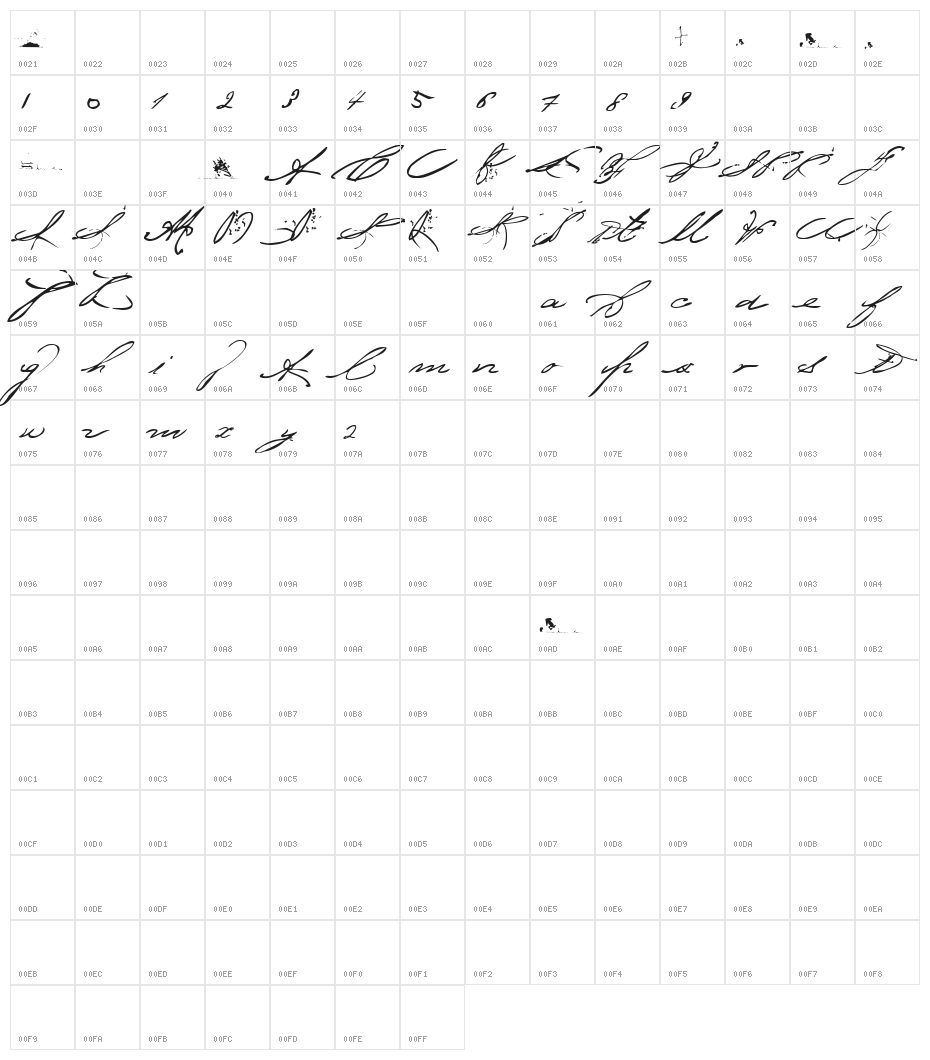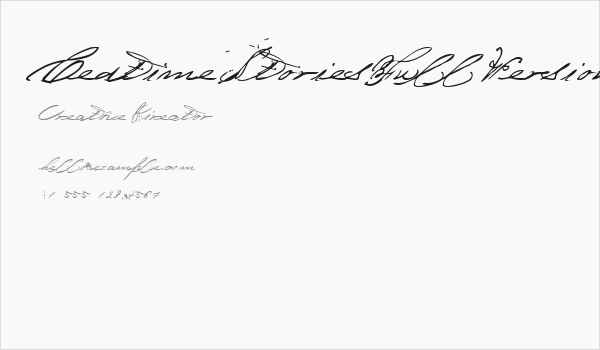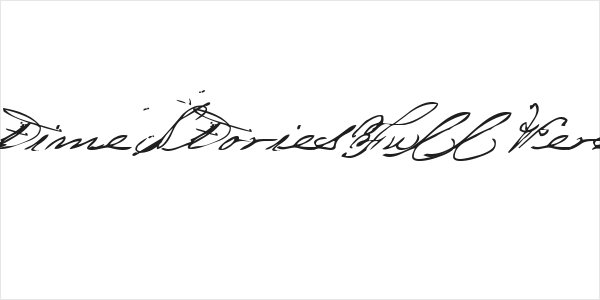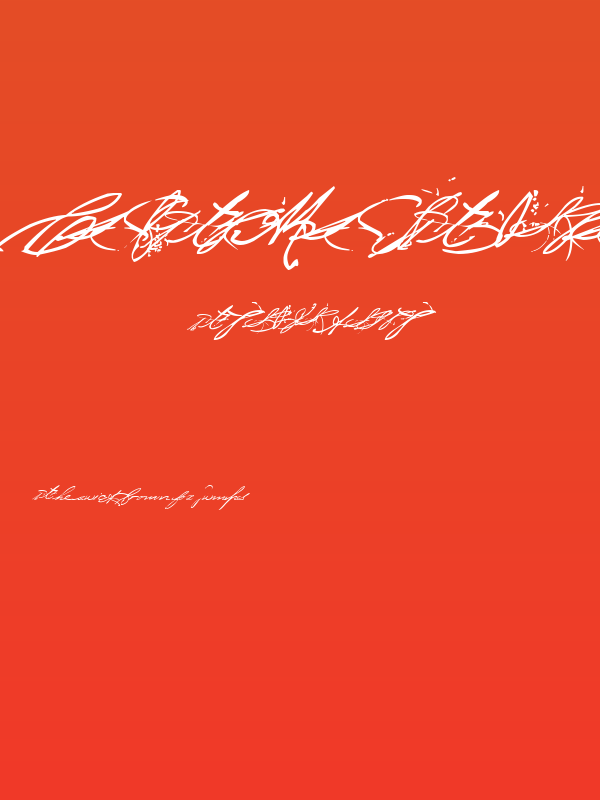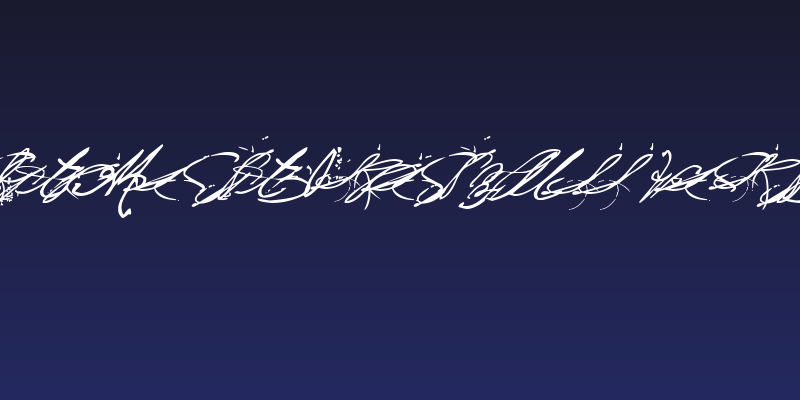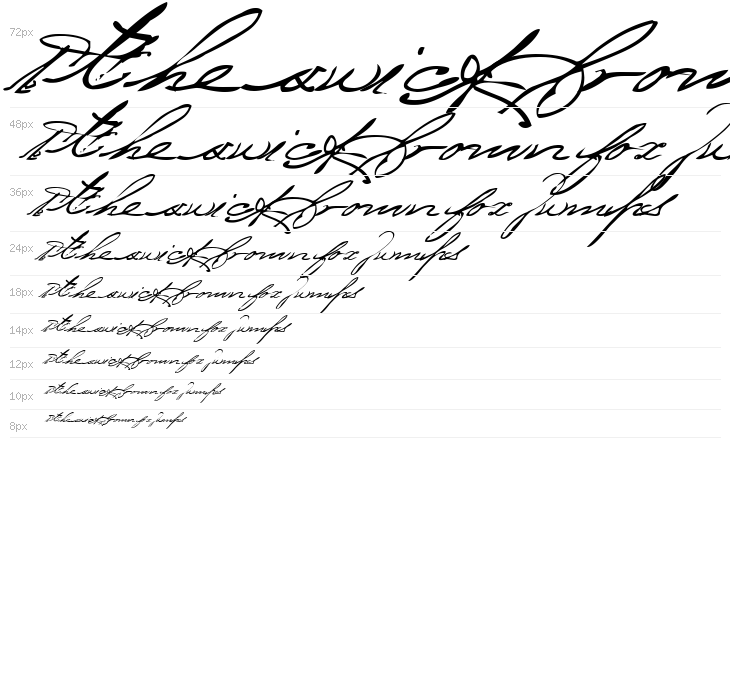
Bedtime Stories Full Version Font
Bedtime Stories Full Version Description
This font exhibits a highly decorative and intricate script style, characterized by elegant, flowing lines and elaborate swirls. The uppercase letters are particularly ornate, with exaggerated loops and flourishes that give the font a sense of grandeur and sophistication. The lowercase letters maintain a consistent fluidity, with smooth connections between characters, enhancing the cursive aesthetic. The numerals are equally stylized, featuring unique curves and angles that align with the overall artistic theme. This font's distinctiveness lies in its ability to convey a sense of elegance and creativity, making it suitable for projects that require a touch of luxury and personalization.
Use CaseLogos, Invitations, Artistic projects
Proposed ProjectsIdeal for wedding invitations, luxury branding, personalized stationery, and artistic projects.